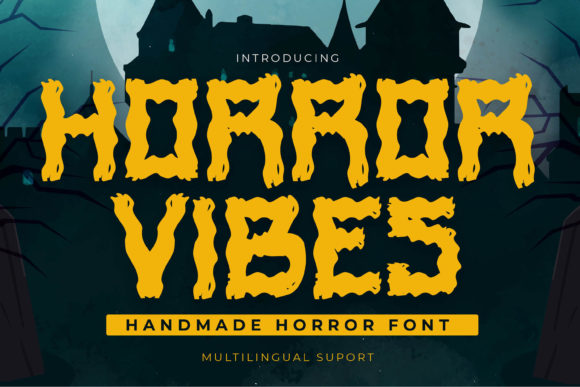
Welcome to the realm of Horror Vibes Font, a display font shrouded in mystery and intrigue. Prepare to embark on an eerie journey that will leave you spellbound. This font is your ultimate companion for creating haunting Halloween crafts and spine-tingling designs. Its sinister appeal ensnares the viewer's attention, making it the perfect choice for captivating logos, posters, and eye-catching branding.
Horror Vibes Font is a dark and twisted masterpiece, the brainchild of the ingenious Gassstype Studio. With its spine-chilling aesthetics, it transports you to a world where shadows dance and whispers echo in the wind. It's not just a font; it's a portal to a realm where your imagination runs wild.
Unleash your creativity with Horror Vibes Font and see your projects rise from the depths of ordinariness to the heights of enchantingly eerie beauty. Its eerie elegance will add a touch of macabre sophistication to your designs, leaving viewers spellbound.
But don't be fooled by its dark allure; Horror Vibes Font possesses an unexpected versatility that will surprise and delight you. It's not confined to the realm of Halloween; it's an artistic chameleon that adapts effortlessly to various genres. Its bewitching charm casts a spell on invitations, album covers, and posters. It's a font that defies boundaries, seamlessly blending the ordinary with the extraordinary.
With Horror Vibes Font at your disposal, you hold the key to unlocking a world of creative possibilities. Its dark, captivating strokes will ignite your imagination and leave your audience spellbound. So, embrace the darkness and let your creativity flourish with Horror Vibes Font. Dare to be different, dare to be captivating, dare to be haunting.